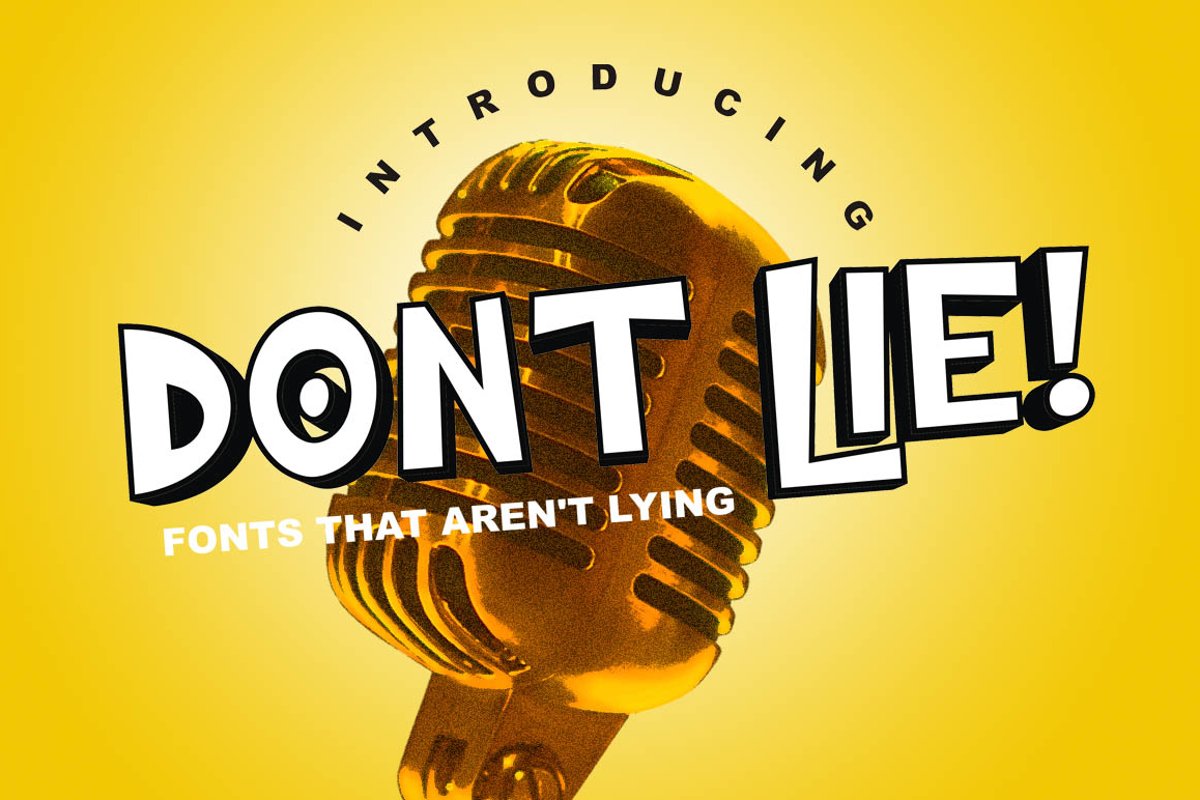
DONT LIE! - Fonts That Arent Lying
Display fonts, thick and strong. Fonts made for advertising, promotion and marketing. The characters are thick and easy to read, easy to see in a promotional material